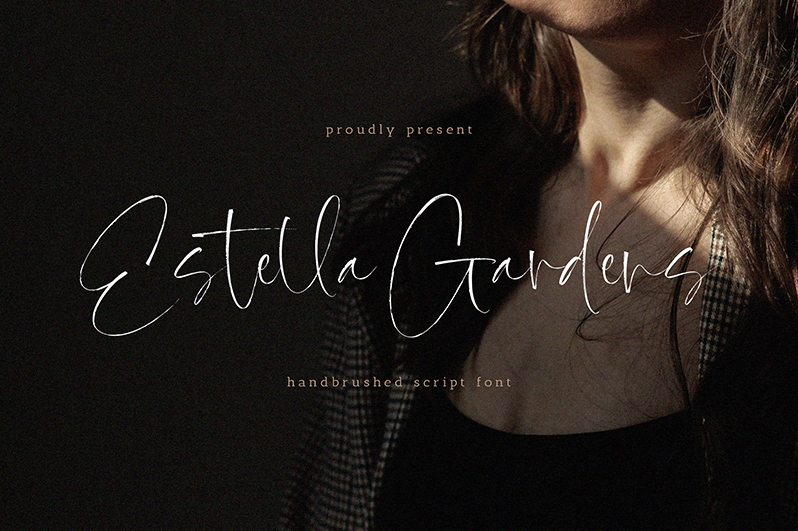
Font name: | Estella Gardens |
Author: | Timur Type |
Note by Timur Type | |
Introduced by Timurtype Studio! Estella Gardens is a Handbrushed Script Font This font showcases the timeless elegance of handbrush script fonts, where each stroke tells a story and adds a twist to your design. With organic lines and graceful curves, these fonts effortlessly blend modern sophistication with a touch of artisanal craftsmanship, creating a harmonious balance that elevates any project to a level of refined beauty and individuality. Let the art of hand-brushed script fonts transform your words into visual poetry, capturing the essence of your message with a touch of bespoke charm. These fonts include: OTF TTF WOFF Estella Gardens Font also supports multilingualism. Estella Gardens font Features premium : -Full Set of standard alphabet and punctuation By installing or using this font, you are agree to the Product Usage Agreement: � This demo font is ONLY for PERSONAL USE. NO COMMERCIAL USE ALLOWED! � Here is the link to purchase full version and commercial license: https://timurtype.com/product/estella-gardens/ � For Corporate use you have to purchase Corporate license timurtype.studio@gmail.com � If you need a custom license please contact us at More... |